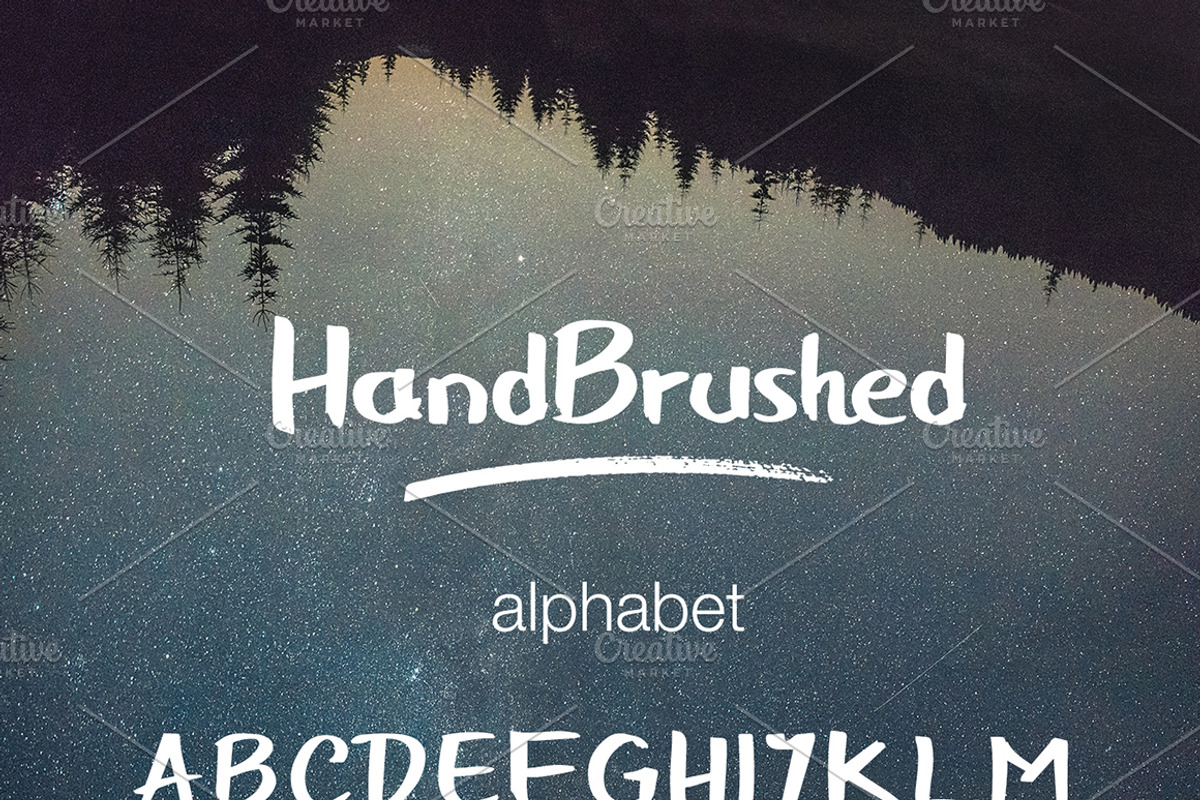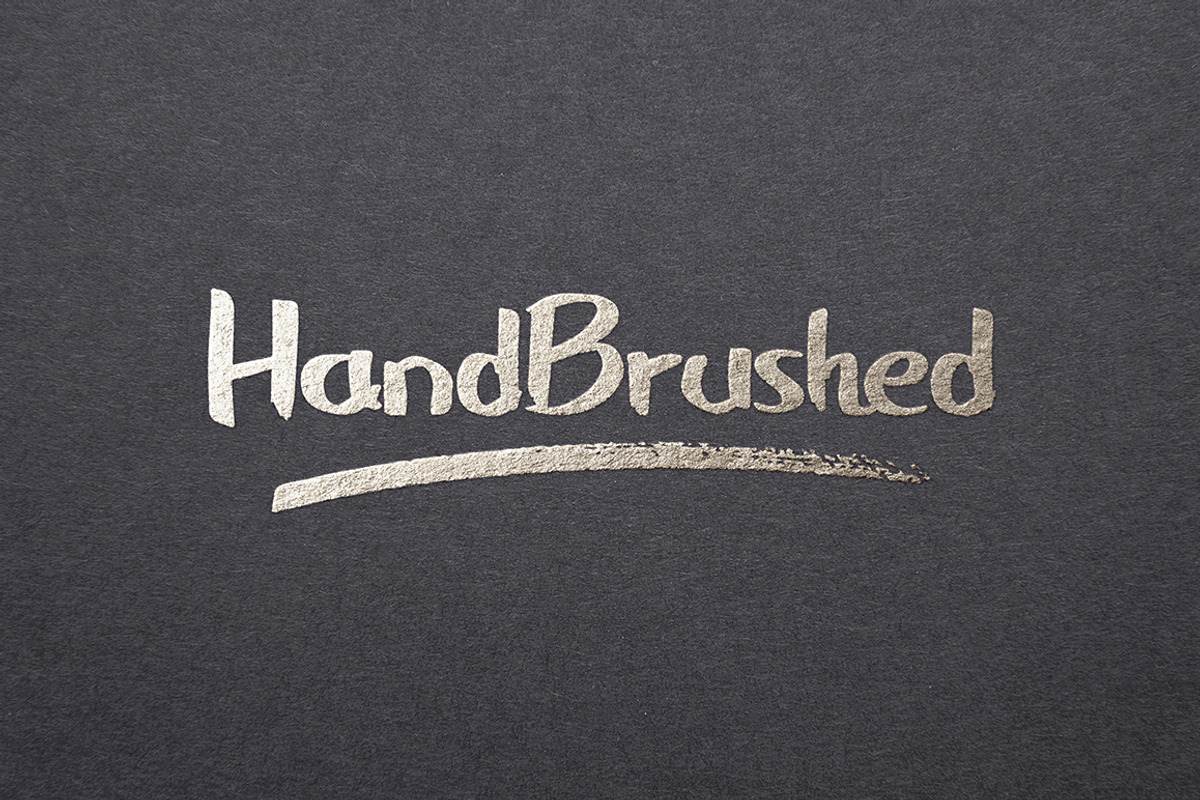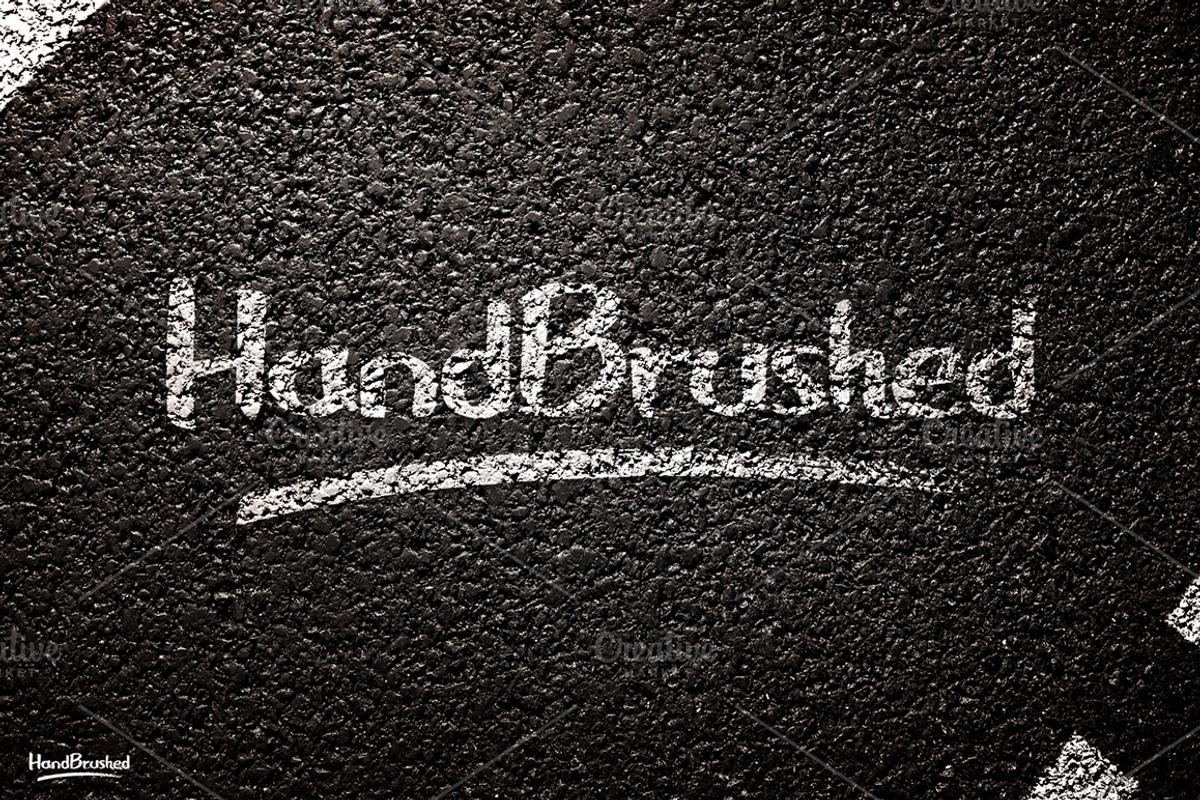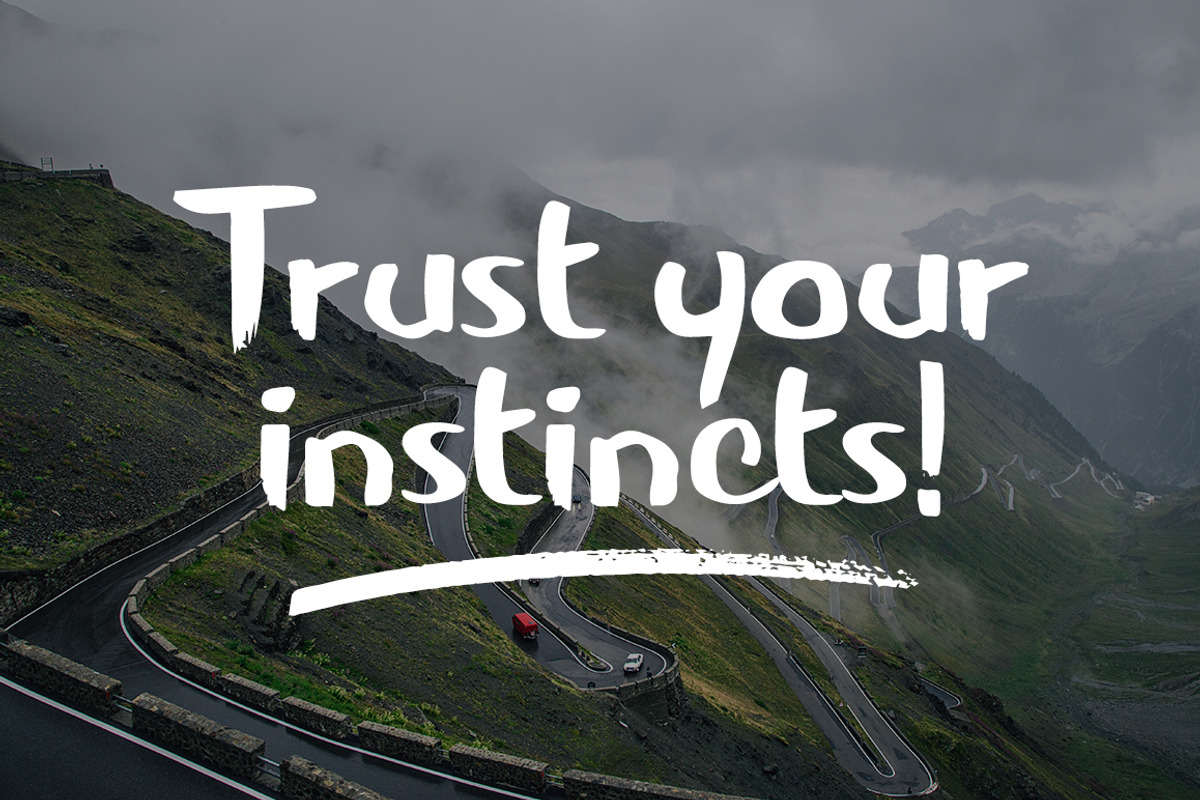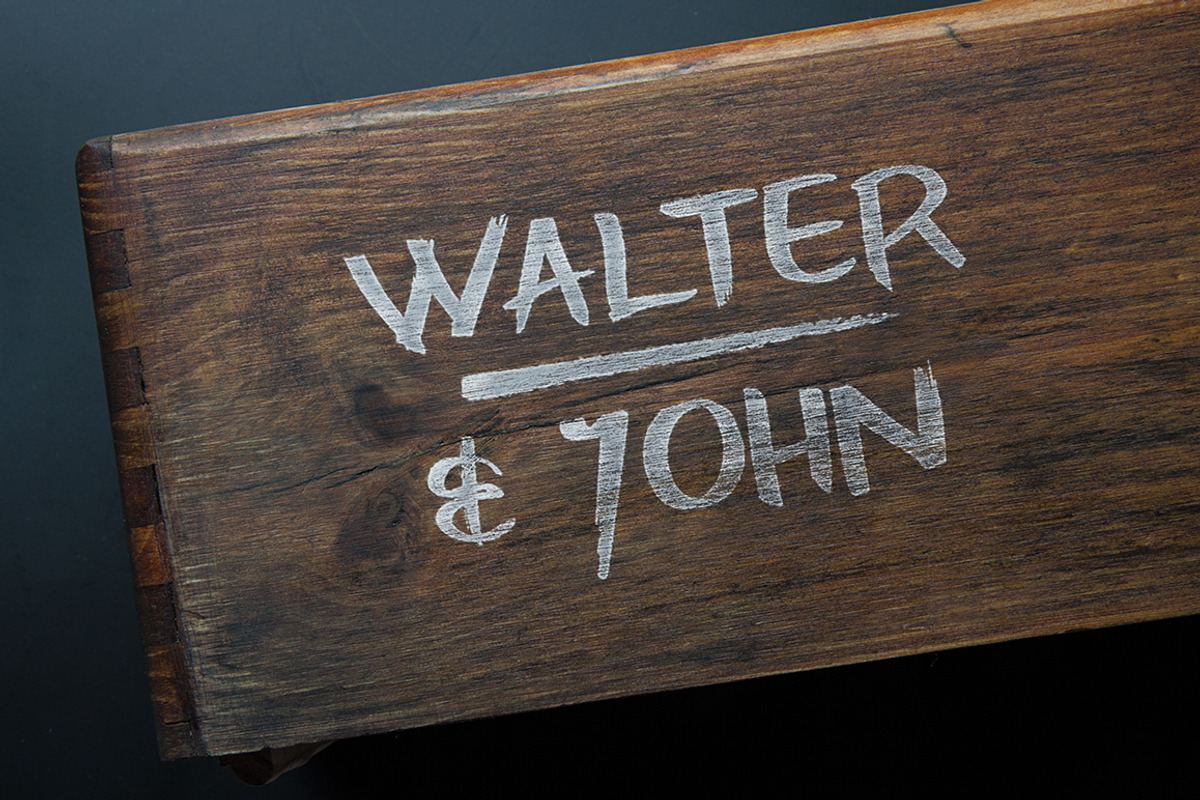
HandBrushed Font
HandBrushed Font by Bogdan Casota is a font selected for branding, posters, packaging, typography.
- It comes with letters in uppercase and lowercase, numbers and glyphs.
Why HandBrushed Font is worth a look
HandBrushed Font by Bogdan Casota fits naturally into Branding, posters, packaging, typography.